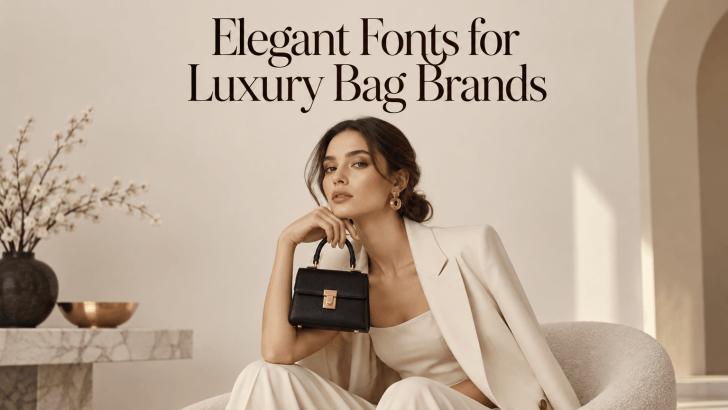
Choosing the right elegant fonts for luxury bag brands can shape how customers perceive a product before they touch the leather, inspect the stitching, or open the packaging. Typography appears across logos, dust bags, hang tags, shopping bags, product cards, websites, and campaign graphics. As a result, font choice becomes an important part of the luxury experience.
For premium handbag brands, typography should feel refined without becoming difficult to read. The right typeface can suggest craftsmanship, exclusivity, confidence, or timeless style. It can also help the brand feel consistent across both physical products and digital platforms.
Why Typography Matters in Luxury Bag Branding
Luxury branding relies heavily on detail. Customers notice the material, hardware, packaging, photography, and typography as part of one complete visual identity. A font that feels too casual may reduce the sense of exclusivity. Meanwhile, overly decorative typography can make the brand feel less sophisticated. The best approach is usually restraint. Elegant letterforms, controlled spacing, and a clear hierarchy often communicate luxury more effectively than excessive decoration.
What Makes a Font Feel Luxurious?
Several visual characteristics can make a typeface feel appropriate for premium handbag branding.
1. Refined Proportions
Luxury fonts often use balanced proportions and carefully shaped letterforms. The characters should feel polished rather than heavy or crowded. A typeface with graceful curves can support feminine luxury branding, while sharper proportions can create a more architectural, modern identity.
2. Controlled Stroke Contrast
High-contrast serif fonts can create a sophisticated editorial mood because their thick and thin strokes add elegance. Lower-contrast fonts can also work for luxury branding, especially when the brand wants a cleaner and more contemporary direction. The key is consistency. The stroke style should feel intentional across the entire wordmark.
3. Generous Spacing
Wide letter spacing can make typography feel more exclusive and calm. It gives each character room to breathe and works especially well in uppercase logos. However, too much spacing can make a brand name difficult to read. Test the wordmark at small sizes before finalizing the design.
Best Font Styles for Luxury Bag Brands
Different luxury brands require different visual personalities. Several font categories work particularly well for handbags and fashion accessories.
1. Elegant Serif Fonts
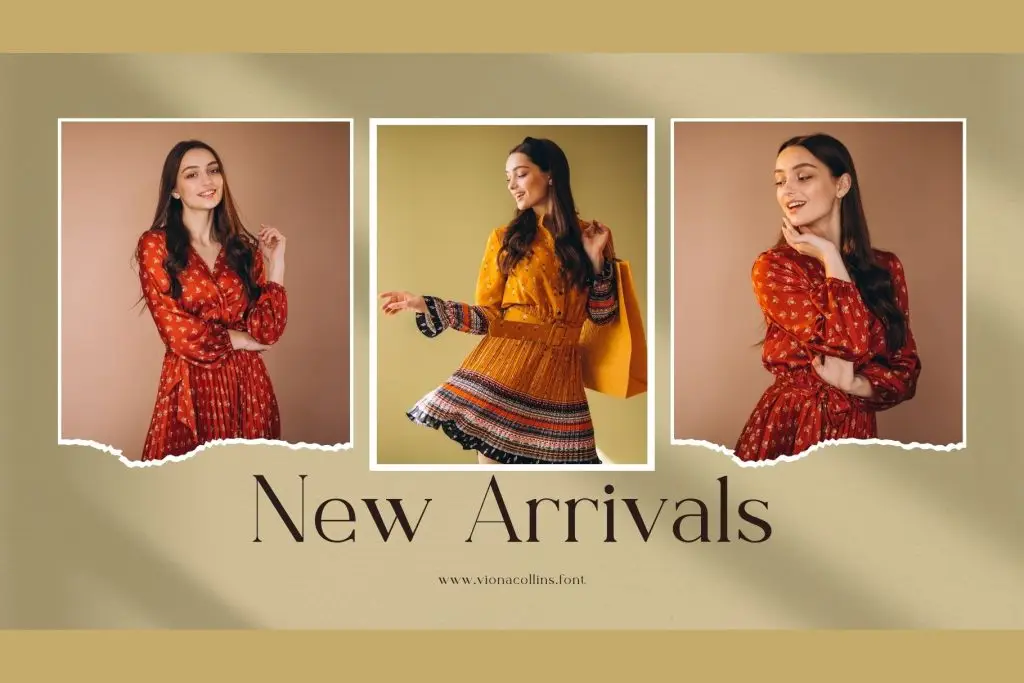
Serif fonts are a classic choice for premium fashion because they can communicate heritage, refinement, and craftsmanship.
They work well for:
- Luxury handbag logos
- Collection names
- Website headlines
- Shopping bags
- Lookbook covers
- Product cards
High-contrast serif fonts can create a more editorial appearance, while softer serif styles may feel timeless and approachable. Use the serif as the primary branding font, then pair it with a clean sans serif for practical information.
2. Modern Sans Serif Fonts
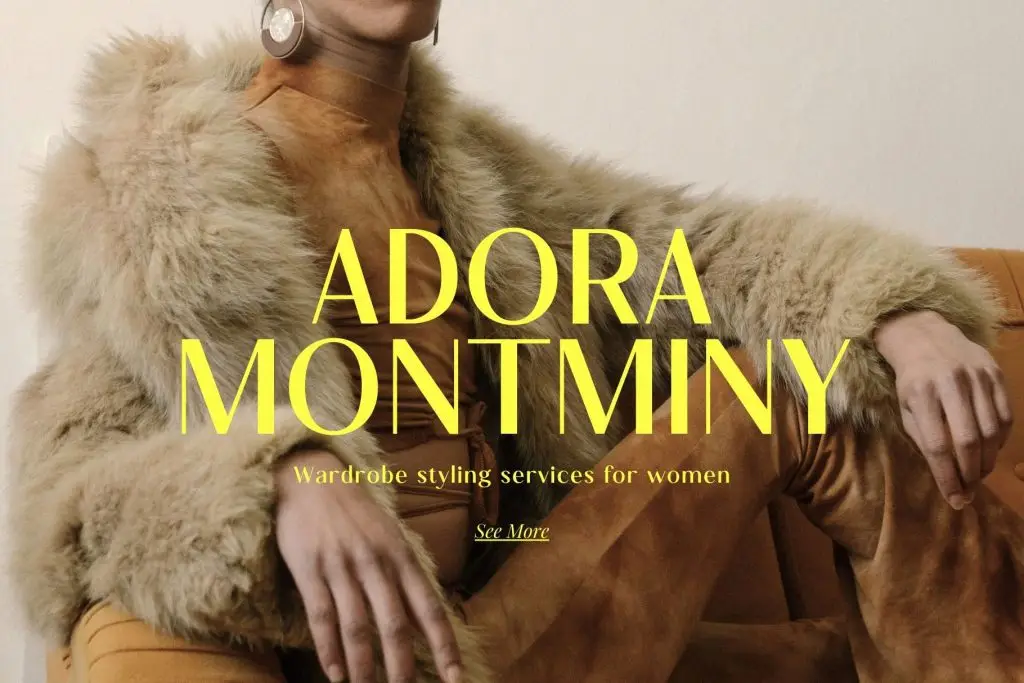
Not every luxury bag brand needs traditional serif typography. A clean sans serif can create a more contemporary and minimalist identity. This approach works well for modern leather goods, architectural handbags, sustainable fashion labels, and premium lifestyle brands. Look for fonts with balanced proportions and subtle personality. Avoid styles that feel too generic or overly corporate. A modern sans serif can also work well for product descriptions, navigation, pricing, and packaging details.
3. Ligature Fonts
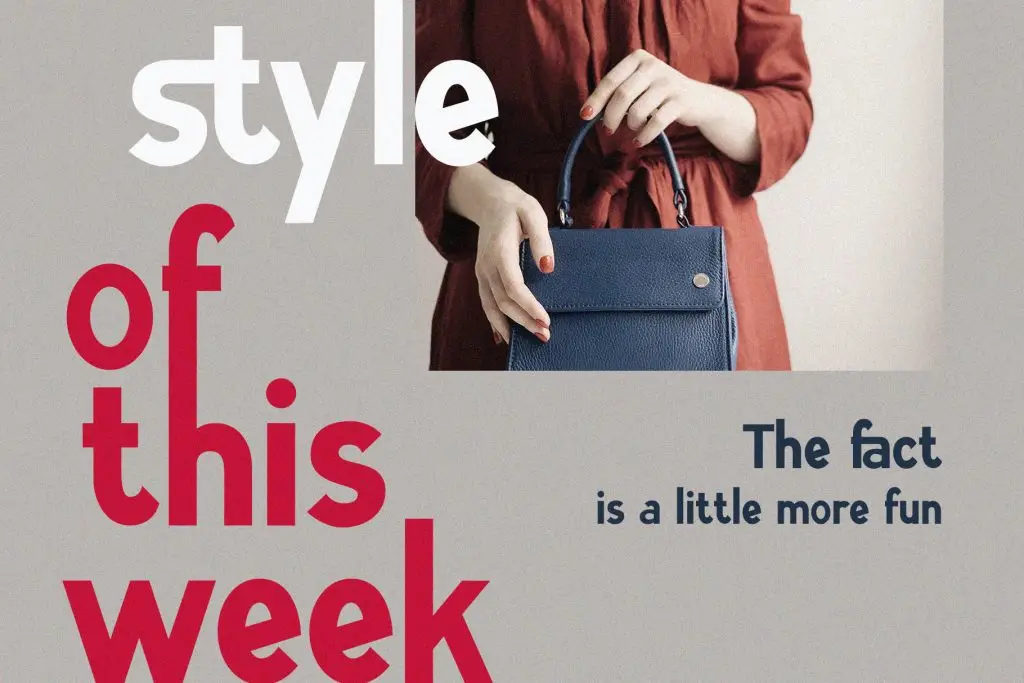
Ligature fonts can give a luxury brand a more customized appearance. Connected characters may create a signature detail within the logo or collection title. For example, a unique connection between two letters can make a wordmark easier to recognize without requiring a completely custom typeface. The best ligatures feel intentional and subtle. Avoid using too many decorative connections because they may reduce readability.
Match the Font With the Bag Style
Typography should reflect the product itself.
1. Structured Leather Bags
A structured handbag often suits clean serif fonts or sophisticated sans serif styles. These typefaces can mirror the precise lines and polished construction of the product. Use restrained colors, generous spacing, and minimal layouts to strengthen the premium impression.
2. Soft and Feminine Bags
Bags with curved silhouettes, delicate details, or softer materials can work well with graceful serif or ligature fonts. Subtle curves in the typography can echo the shapes of the bag and create a more cohesive visual identity.
3. Contemporary Statement Bags
Let materials, photography, spacing, and typography work together. A simple wordmark with strong proportions can feel more premium than a complicated logo filled with ornamental details.
Conclusion
Elegant fonts for luxury bag brands should support both the current collection and future growth. The typeface may eventually appear on wallets, shoes, packaging, websites, campaigns, and international stores.
Choose a font with enough flexibility to work across those applications while maintaining the same personality.